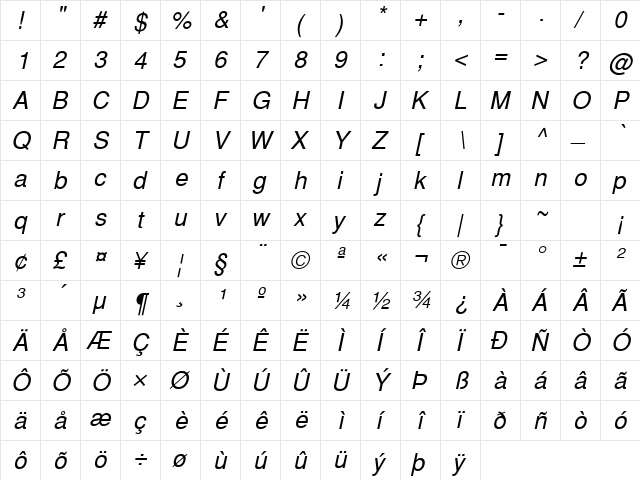
HeaveneticaSH Oblique
Design Context for HeaveneticaSH Typeface
HeaveneticaSH offers clean, dependable letterforms without strong stylistic allegiance, making it a practical choice for designers who need flexibility. The slanted form adds forward momentum and visual energy.
Pro Tip: Try HeaveneticaSH for annotation and caption copy alongside an upright companion — the contrast in angle creates a dynamic but ordered typographic system.